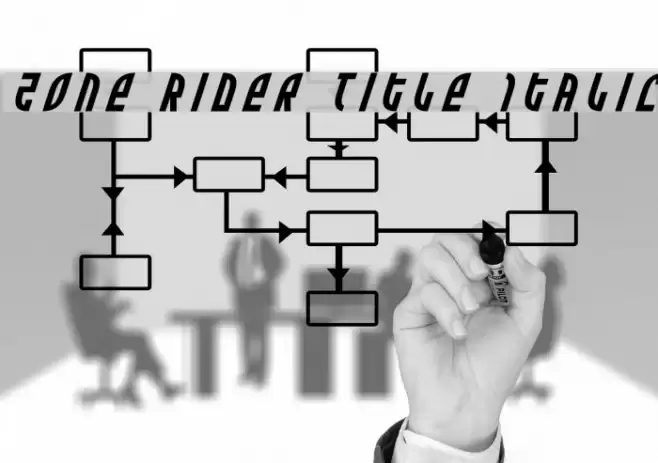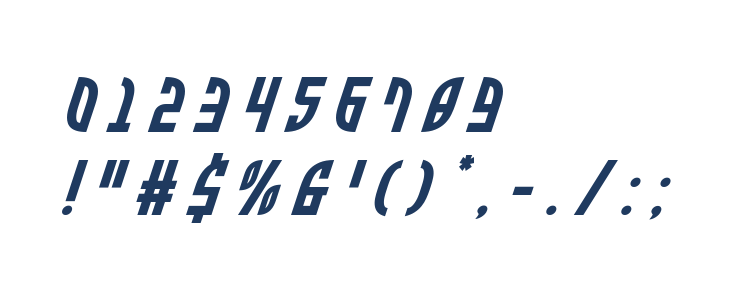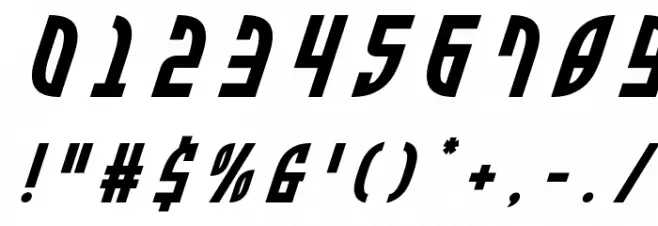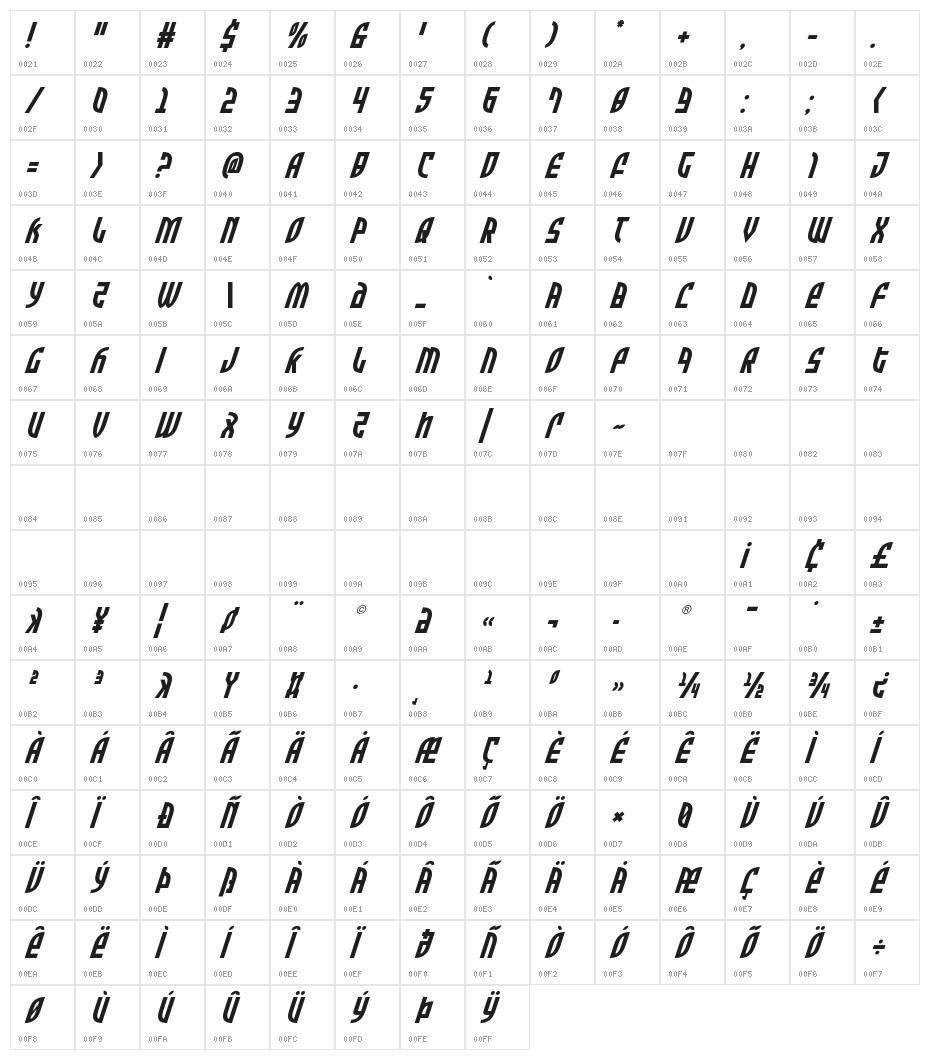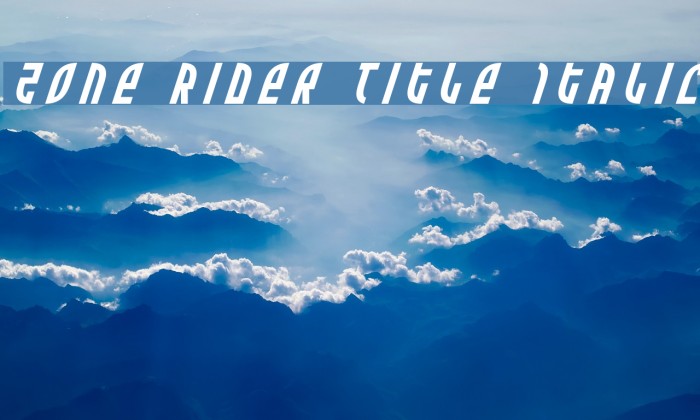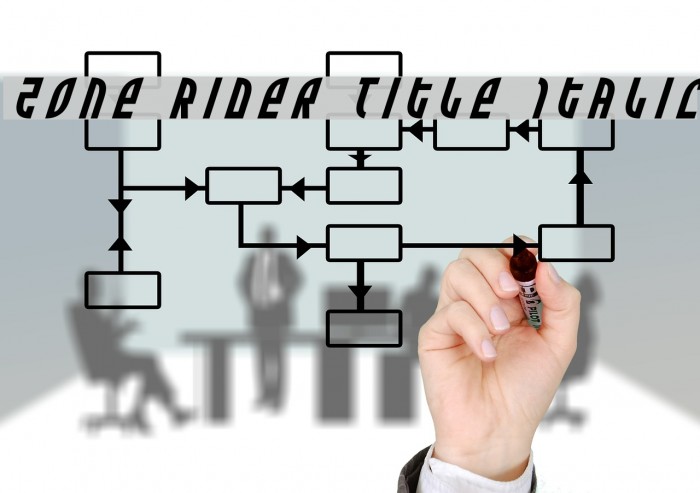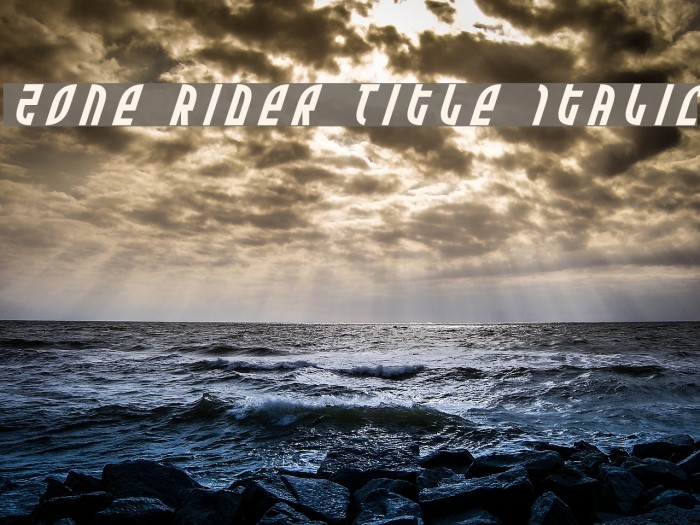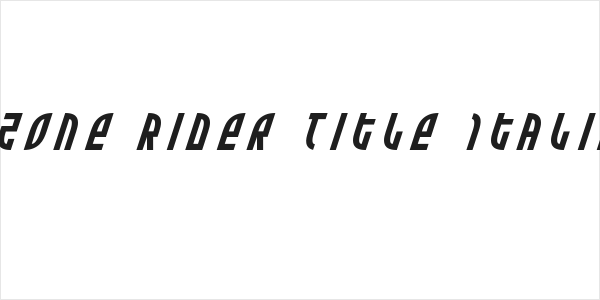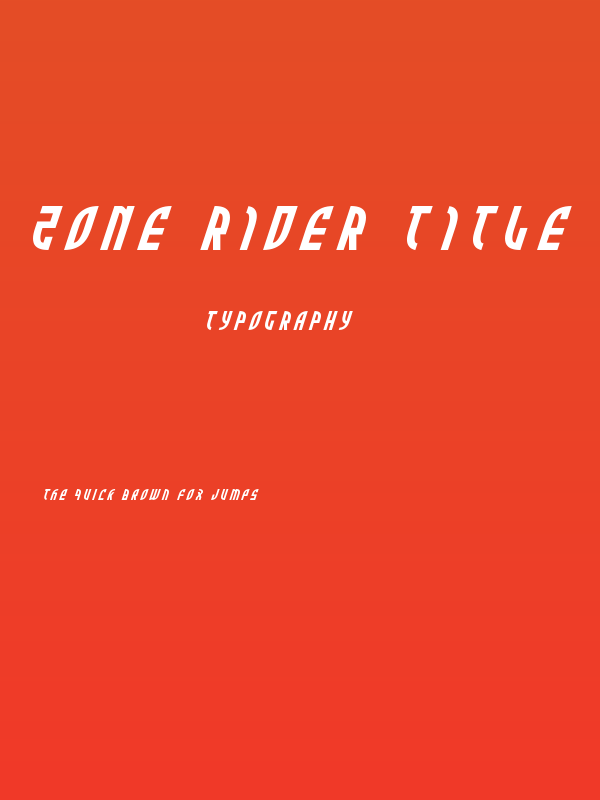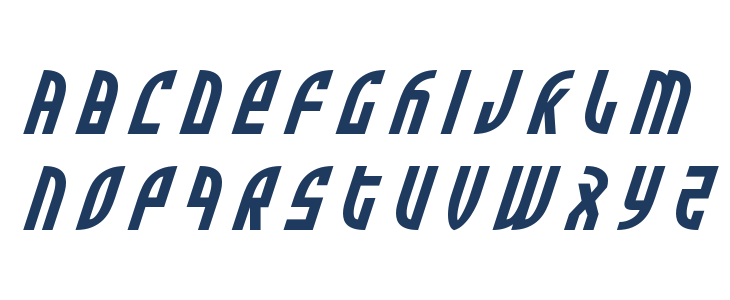
Zone Rider Title Italic Font
Zone Rider Title Italic Description
This font features a bold and italicized style with a futuristic and dynamic appearance. The characters are sharply angled, giving them a sense of motion and energy. The uppercase letters are distinct with a slanted orientation, while the lowercase letters maintain a consistent style, enhancing readability. The numerals are bold and follow the same italicized slant, ensuring uniformity across the character set. Special characters are designed to match the overall aesthetic, making this font suitable for attention-grabbing designs.
A bold, italicized font with a futuristic and dynamic style from Sci-fi fonts.
- Proposed Projects: Ideal for sci-fi themed projects, video game titles, posters, and branding that requires a modern and energetic look.